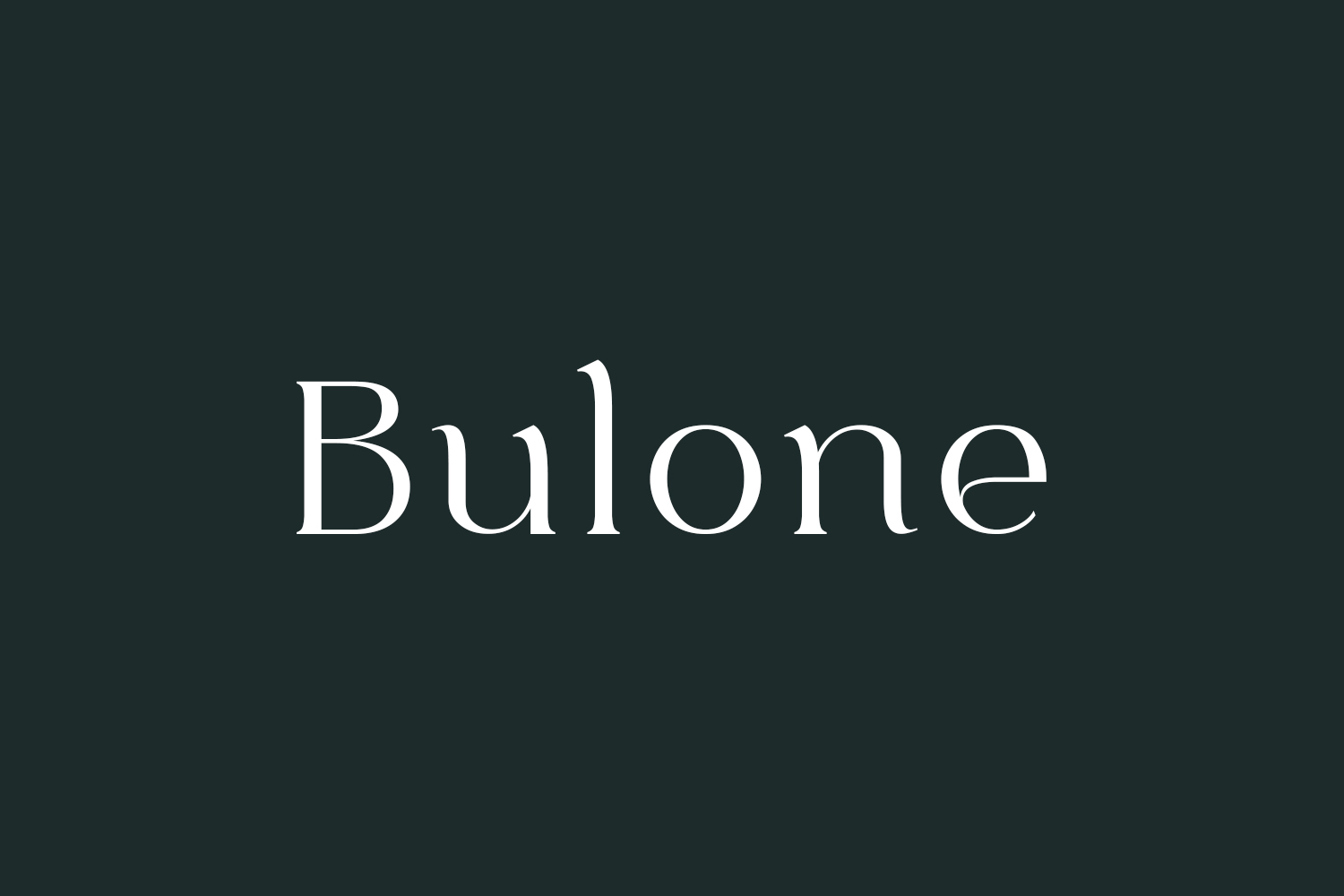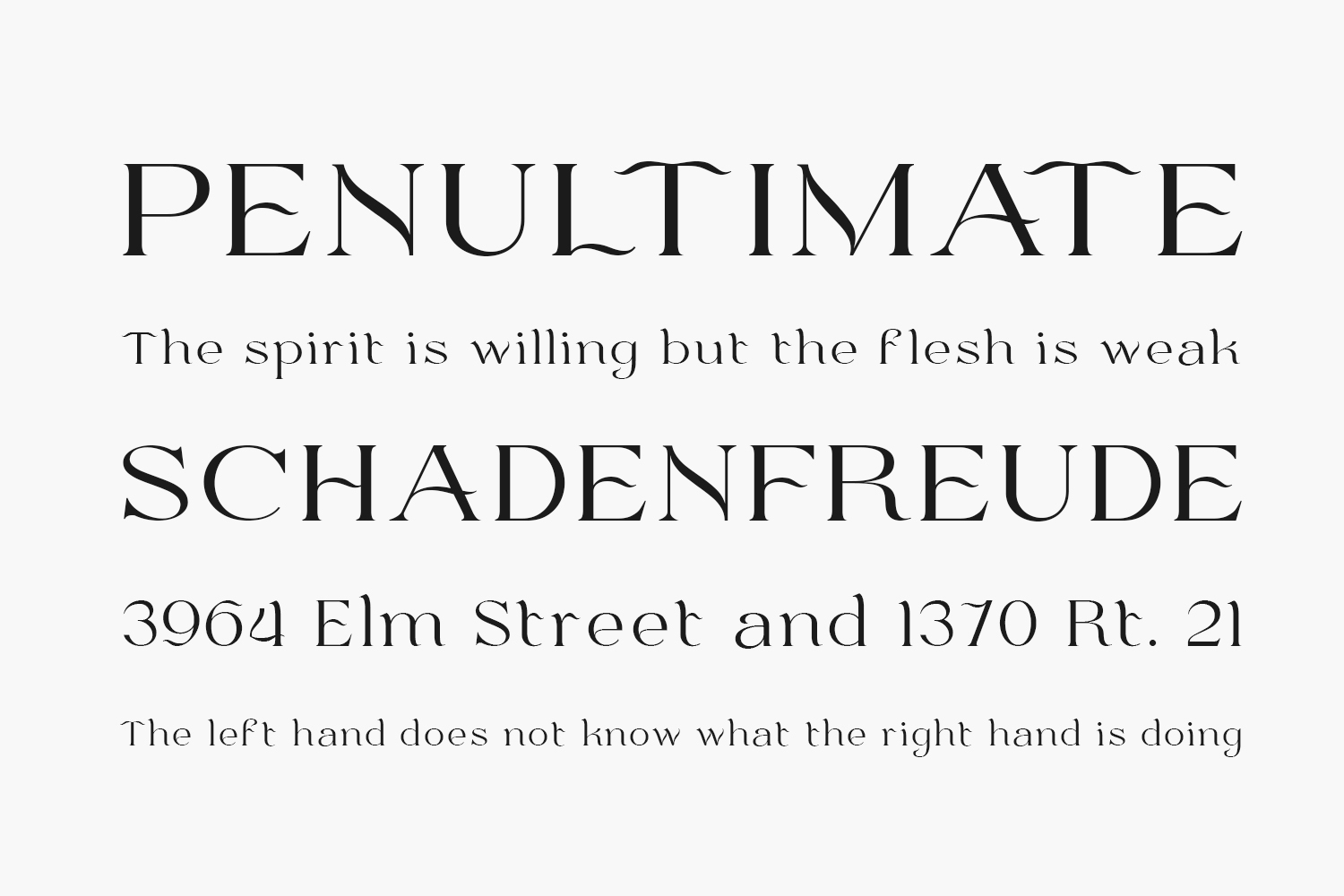
Introducing Bulone Free Font, a captivating font characterized by its dynamic serif style. This meticulously crafted typeface boasts seamlessly flowing details, resulting in exquisite and distinct curves. Its inherent elegance makes it a versatile choice for various designs, particularly those seeking a refined and sleek aesthetic. Bulone Free Font is free for personal use only. Please purchase the full version for commercial use.
Designed by Alit Design